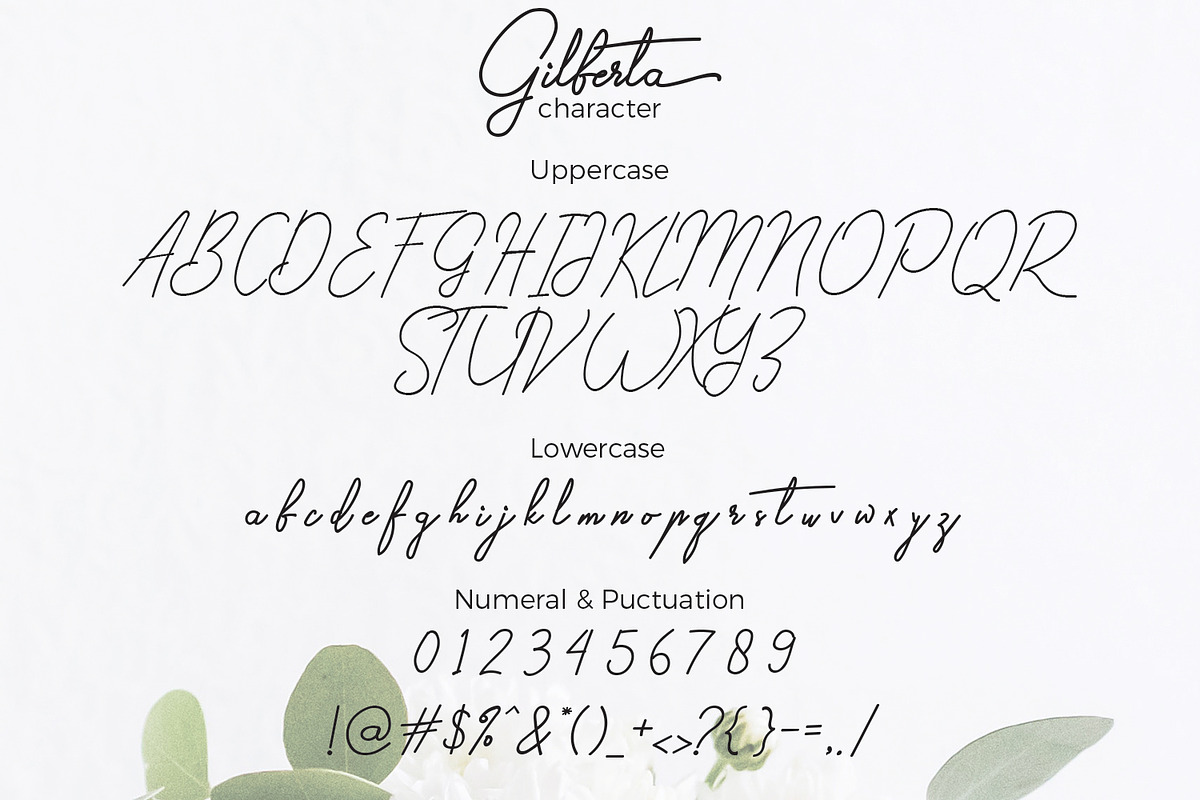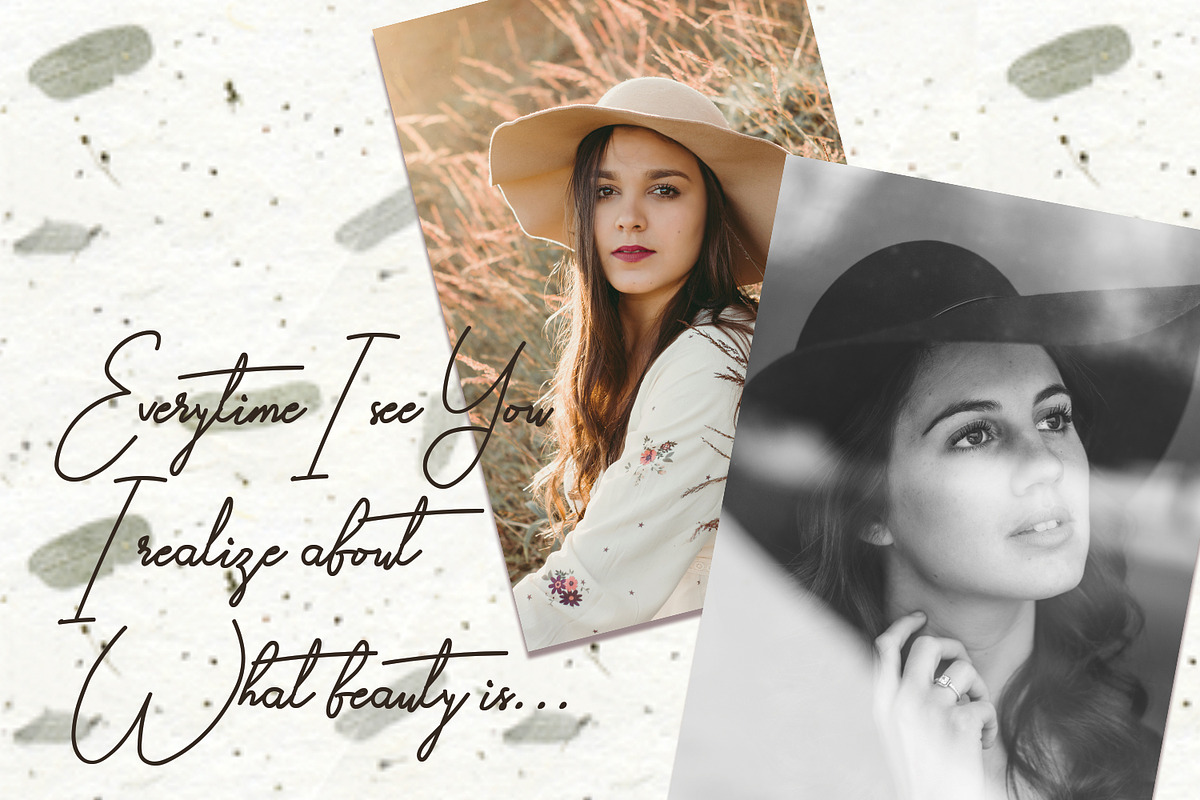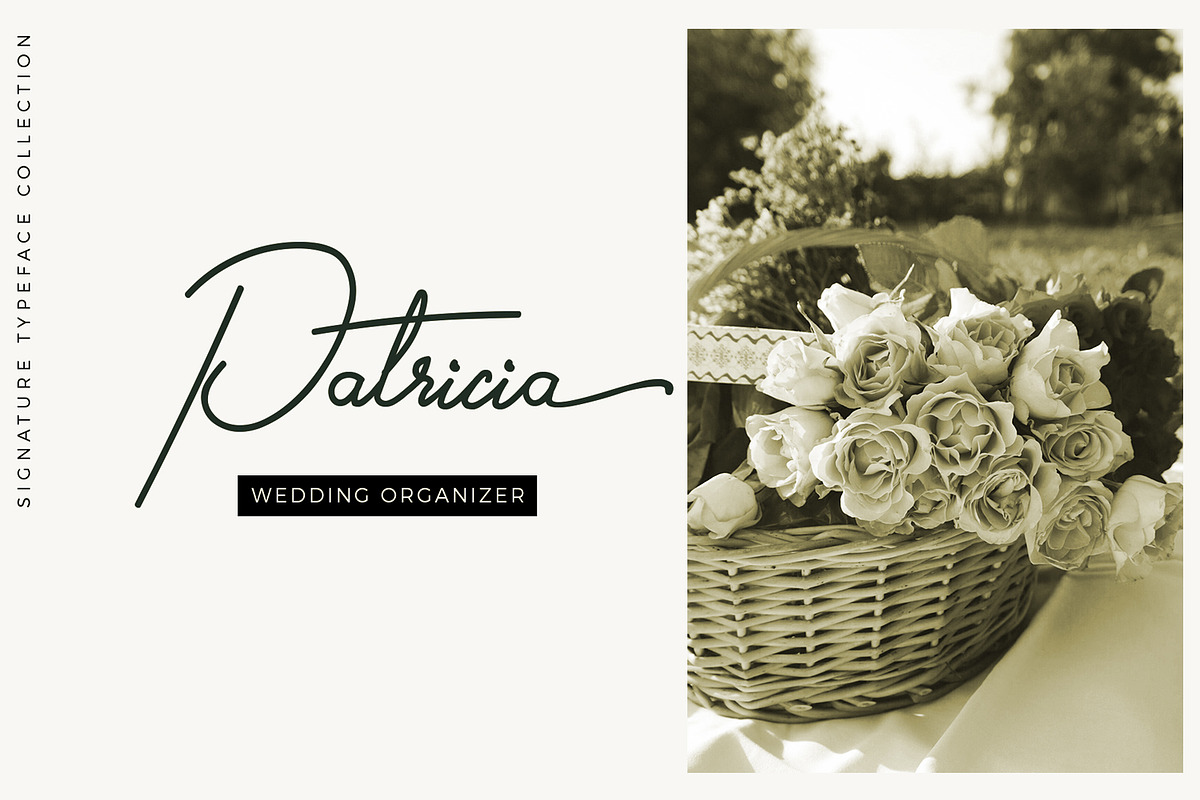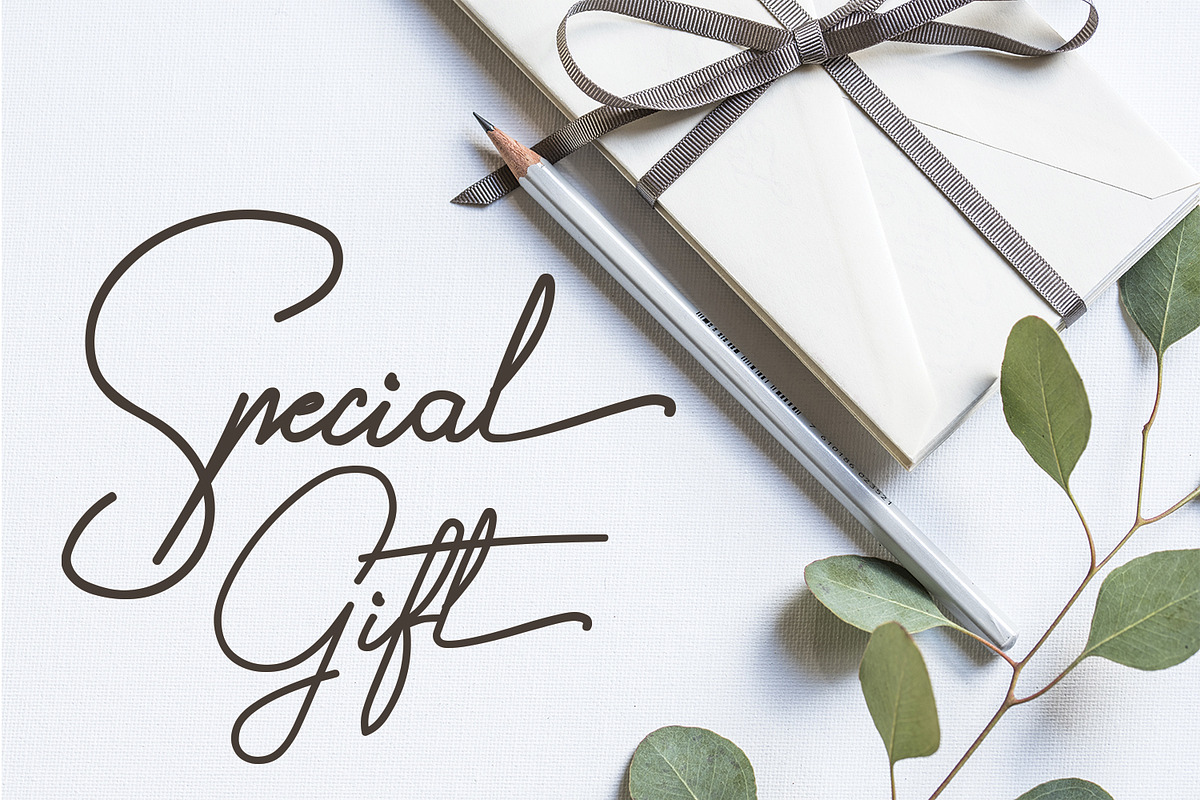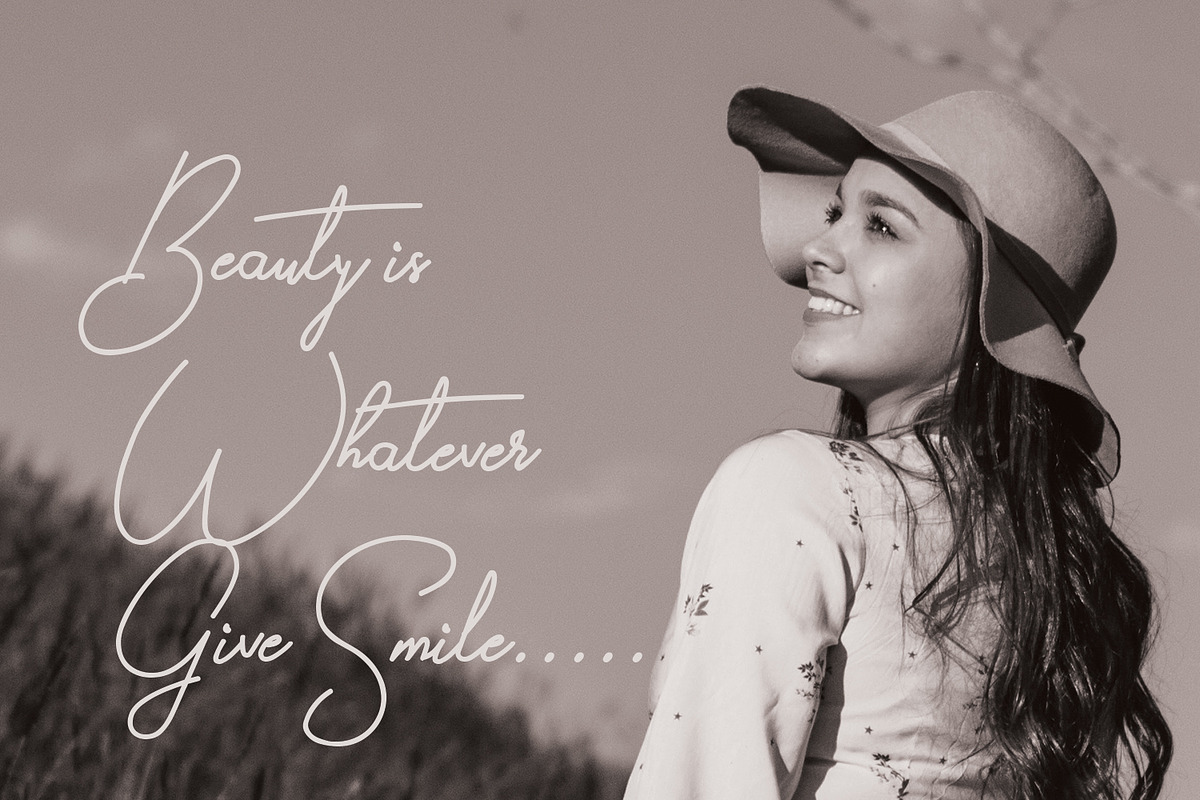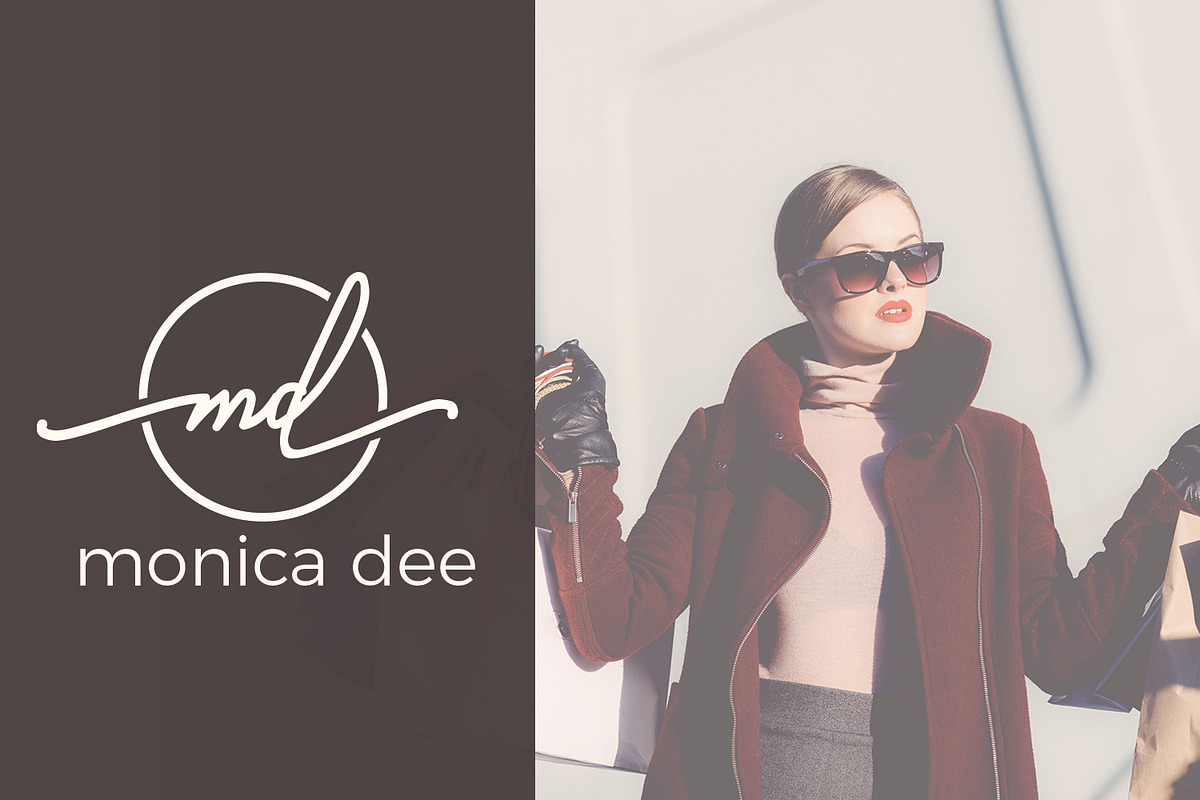
Gilberta - Signature Font
Gilberta Font is inspired from signature font. Gilberta is great for branding design, signature designs, product packaging, simply design with stylish text overlay to any background image.
uppercase & lowercase letters
numbers & punctuation
alternate glyphs from a to z
Gilberta - Signature Font by LetterJos fits naturally into Branding, posters, packaging, typography.